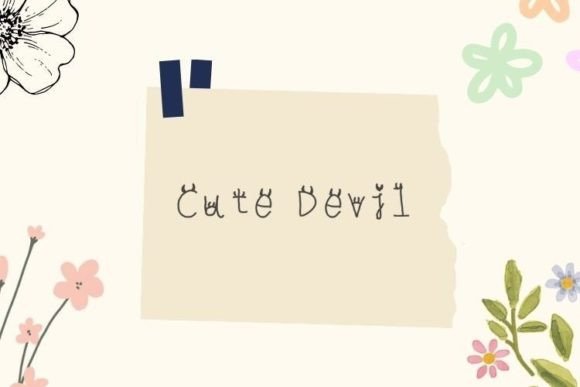
Unleash your inner creativity and transform your designs with the captivating charm of Cute Devil font, a decorative masterpiece from Awesome Graphics. This enchanting font family is meticulously crafted to turn your letters into captivating works of art, adding a touch of whimsy and delight to any project.
Picture this: your White Paper, a critical document that demands attention and engagement, adorned with the irresistible allure of Cute Devil font. Its playful curves and charming characters command attention, drawing readers into your words. The carefully kerned letters dance across the page, creating a visual symphony that captivates and entices.
Imagine crafting a greeting card that exudes warmth and affection, or a social media post that sparks joy and engagement. With Cute Devil font as your artistic ally, your words become visual treats, igniting emotions and leaving a lasting impression.
But the magic of Cute Devil font doesn't stop there. Its versatility extends to logos, branding, and website design, adding a touch of playful sophistication to your visual identity. Let Cute Devil font be your secret weapon to stand out in a crowded digital landscape, attracting customers and leaving a memorable mark.
Don't let your designs be ordinary; embrace the extraordinary with Cute Devil font. Its stylish and cute characters will transform your headings into eye-catching masterpieces, captivating audiences and leaving them craving more.